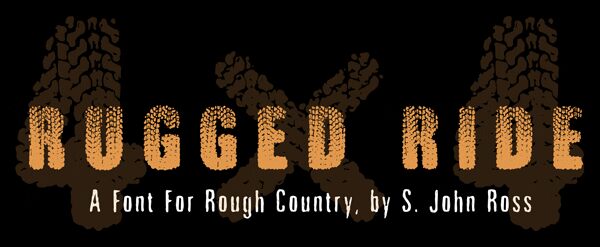
Rugged Ride by S. John Ross of Cumberland Fontworks is a free eroded display font shaped around the look of heavy tire tracks. Each broad letter is packed with broken tread marks, combining a dense silhouette with rough gaps that suggest rubber stamped onto dusty ground.
Off-road racing and motorsport are its clearest territory. The tread pattern suits event posters, vehicle graphics, and apparel for clubs or outdoor brands, where the lettering can echo the machines and terrain behind the message. On packaging or game artwork, those repeated tire shapes can continue into track illustrations and muddy background textures, turning the words into part of the scene.